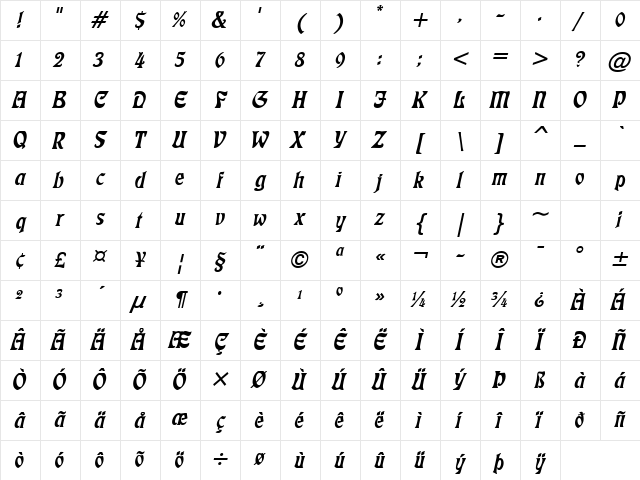
Freedom Italic
Design Context for Freedom
Freedom is a composed and adaptable typeface that performs quietly and consistently across a wide range of design contexts. The slanted form adds forward momentum and visual energy.
Pro Tip: Use Freedom for emphasis, pull quotes, and subheadings where its slanted energy can add rhythm to the layout.